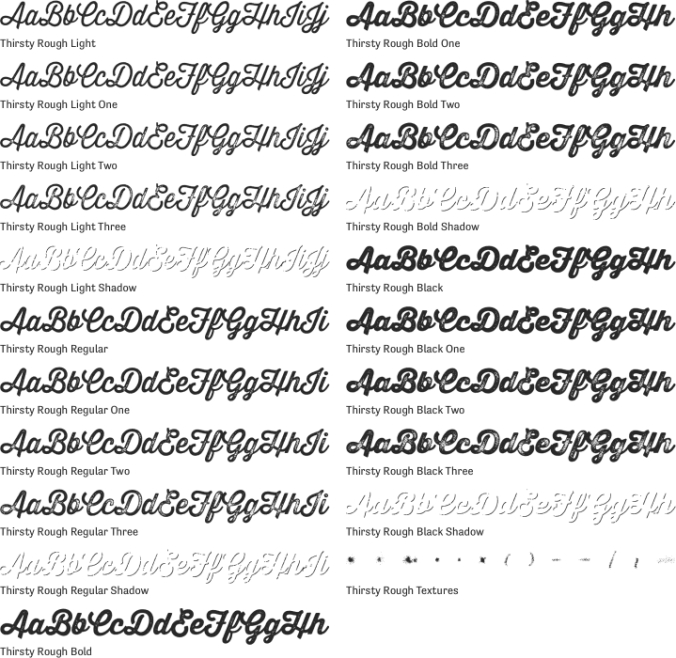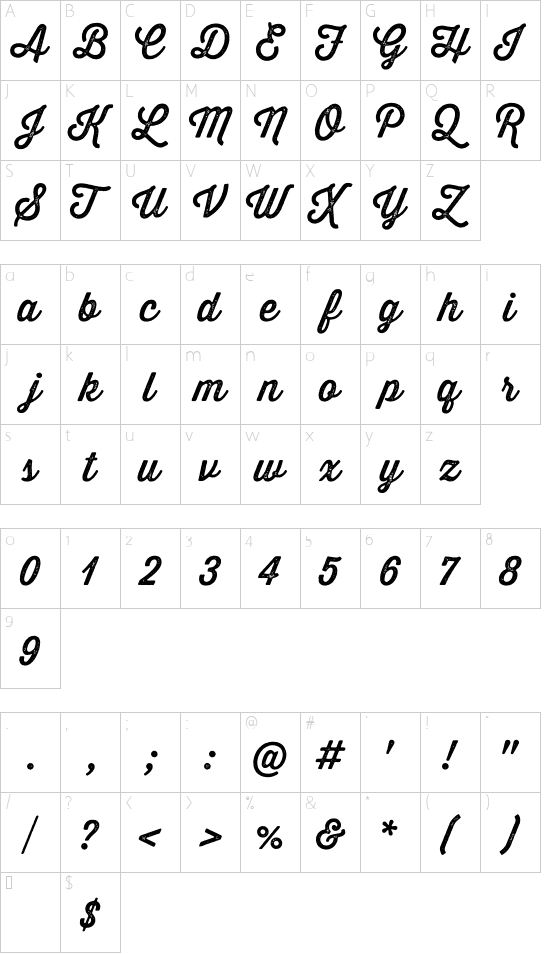
Similar free fonts for thirsty rough light one. Thirsty script rough from yellow design studio is the warm and weathered version of thirsty script with texture that captures the authentic qualities of letterpress printing.
It’s highly customizable with four alternate versions of every weight ranging from very light to heavy distress.
It’s highly customizable with four alternate versions of every weight ranging from very light to heavy. What is the thirsty rough font? Thirsty rough is a dingbat, grunge and brush script font family.
Thirsty script rough from yellow design studio is the warm and weathered version of thirsty script with texture that captures the authentic qualities of letterpress printing. Thirsty script rough from yellow design studio is the warm and weathered version of thirsty script with texture that captures the authentic qualities of letterpress printing. Thirsty script rough from yellow design studio is the warm and weathered version of thirsty script with texture that captures the authentic qualities of letterpress printing.
Thirsty script from yellow design studio is a contemporary script conceived as a marriage of elements from vintage signage scripts, wisdom script, deftone stylus, and lobster. Download a font from the thirsty rough family. Similar free fonts for thirsty rough light.
It’s friendly with an edge.a mixture of retro script, modern sans serif, and a. It’s highly customizable with four alternate versions of every weight ranging from very light to heavy distress. It’s highly customizable with four alternate versions of every weight ranging from very light to heavy distress.
It’s highly customizable with four alternate versions of every weight ranging from very light. Nov 26, 2015 by free fonts. Thirsty rough is a script typeface font designed by ryan martinson and published by yellow design studio in 2012.
Because it’s remarkably detailed, it looks great even at large sizes. For extra customization and fun. Thirsty rough light yellow design studio 2012.